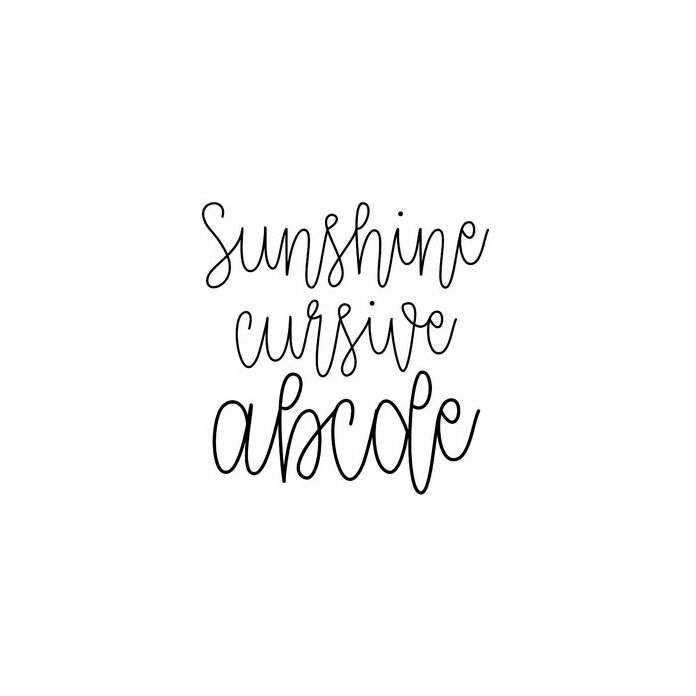
A playfully elegant skinny cursive handwriting script font fun for decorative summer crafts, birthday, monogram, wedding, planners, holiday, cards, and personalization projects.